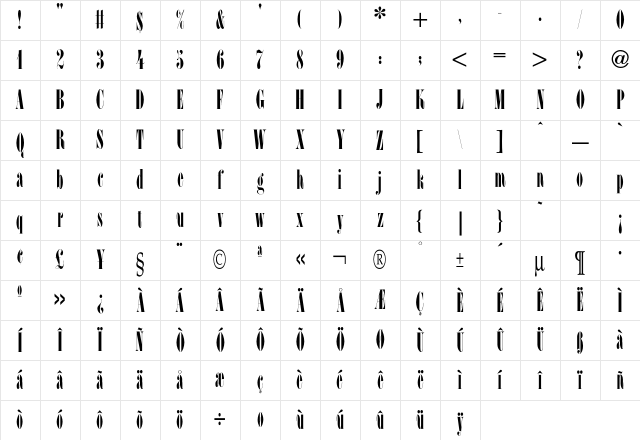
L SCCondensed
Design Context for L
L is a composed and adaptable typeface that performs quietly and consistently across a wide range of design contexts. Its narrow stance lets it pack a punch even in space-constrained designs.
Pro Tip: Use L in both headline and body roles to test its range before committing to a single application.